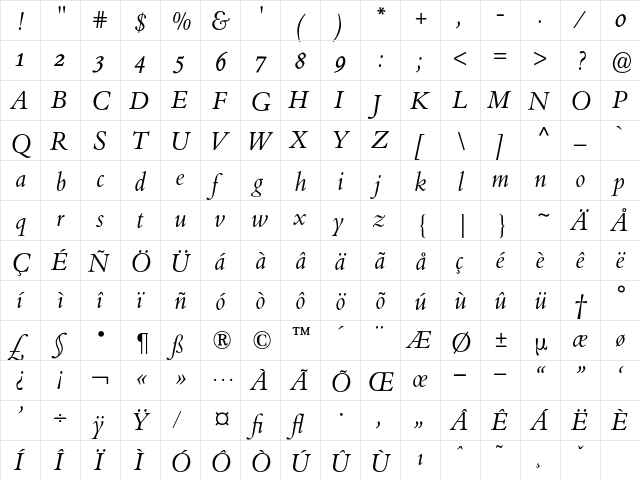
BemboExpertBQ-ItalicOsF Regular
Design Context for BemboExpertBQ-ItalicOsF Typeface
BemboExpertBQ-ItalicOsF is a composed and adaptable typeface that performs quietly and consistently across a wide range of design contexts. The slanted form adds forward momentum and visual energy.
Pro Tip: Try BemboExpertBQ-ItalicOsF for annotation and caption copy alongside an upright companion — the contrast in angle creates a dynamic but ordered typographic system.